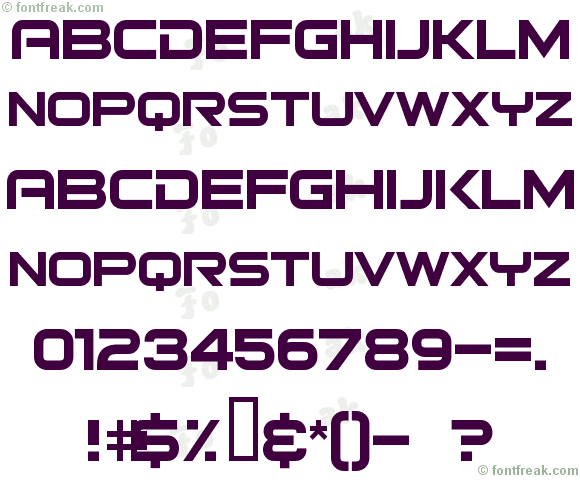
Bitsumishi
About Bitsumishi
Bitsumishi, designed by Levi in 2001, is a striking display font that captures attention with its bold and modern aesthetic. This freeware typeface features a sans-serif style, characterized by its clean lines and geometric shapes, making it ideal for a variety of design applications. The font exhibits a uniform stroke weight, providing a cohesive look that enhances readability while maintaining a strong visual impact. Its generous letter spacing further contributes to clarity, allowing each character to stand out distinctly.
The Bitsumishi font is particularly well-suited for creative projects that require a contemporary flair. It excels in use cases such as movie posters, where its boldness can convey excitement and draw in audiences. Additionally, it serves as an excellent choice for branding materials, helping small business owners create memorable logos that leave a lasting impression. Bitsumishi is also a fantastic option for eye-catching restaurant menus, as its unique style can enhance the dining experience by setting a modern tone. Content creators will find it useful for social media graphics, where grabbing attention quickly is crucial.
Targeting graphic designers, small business owners, and content creators, Bitsumishi offers versatility that appeals to diverse audiences. Its unique design ensures that it stands out in a crowded digital landscape, making it a valuable addition to any designer's toolkit. Whether you're crafting an invitation, a promotional piece, or an online post, this font's distinctive presence can elevate your work.